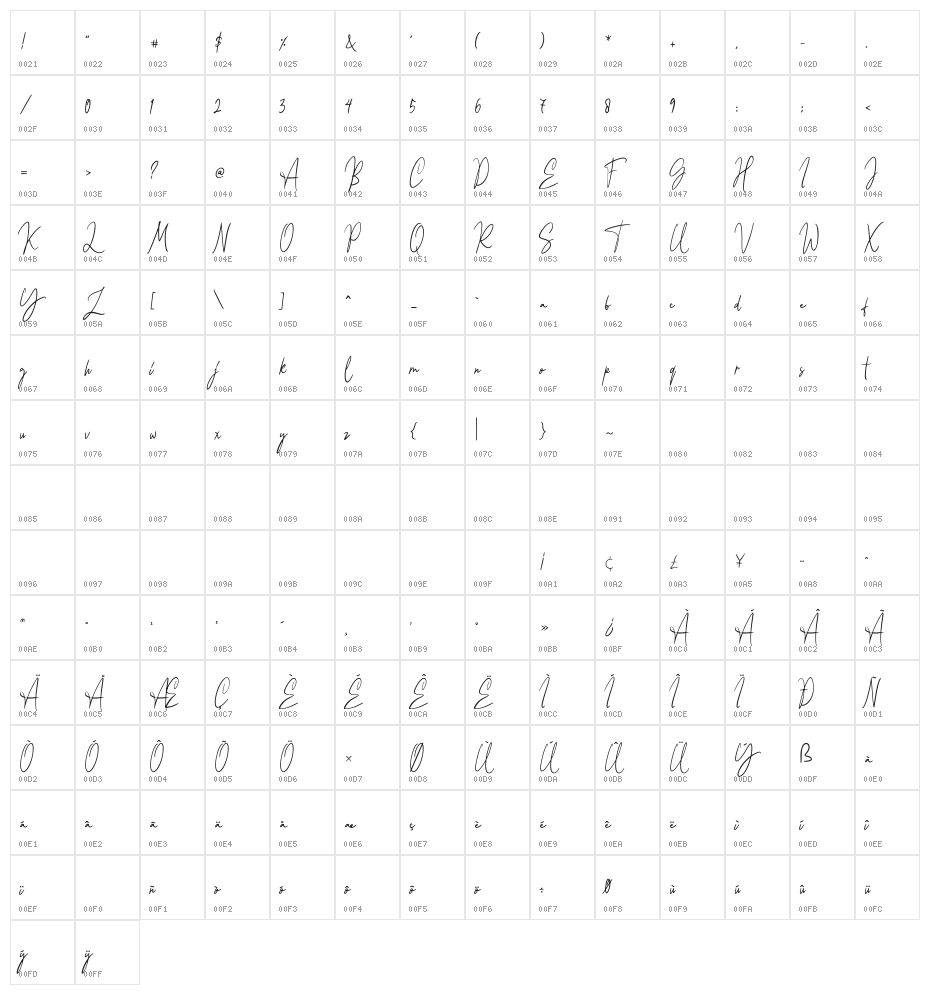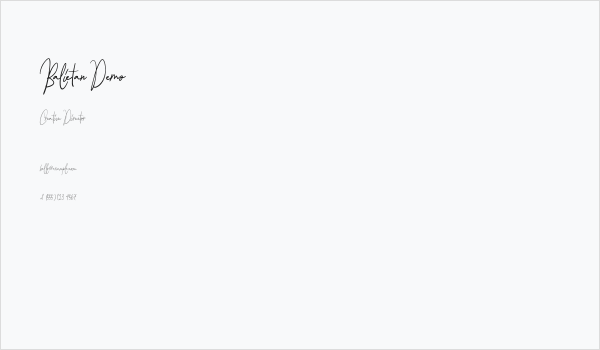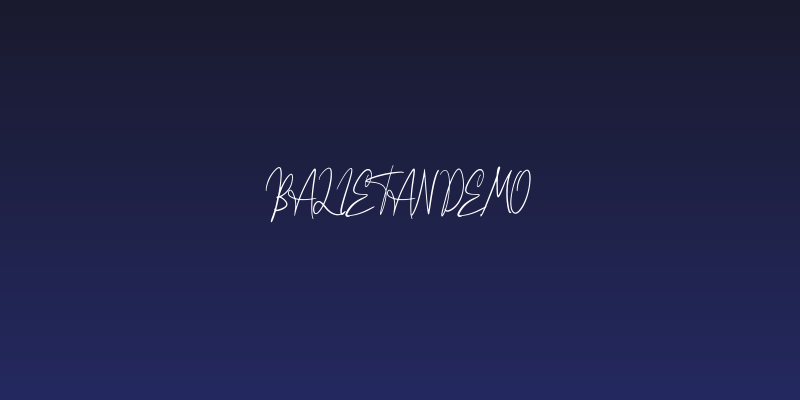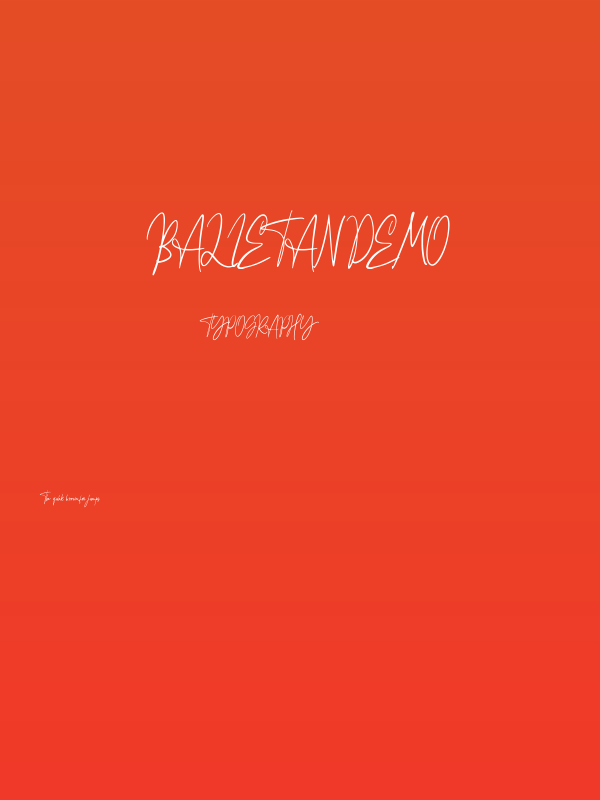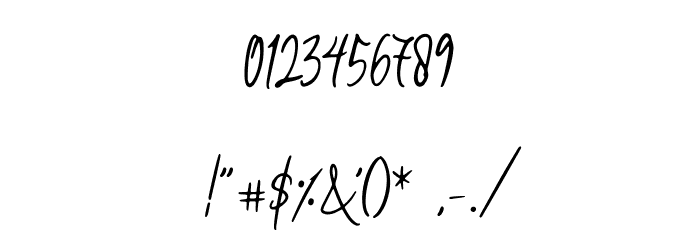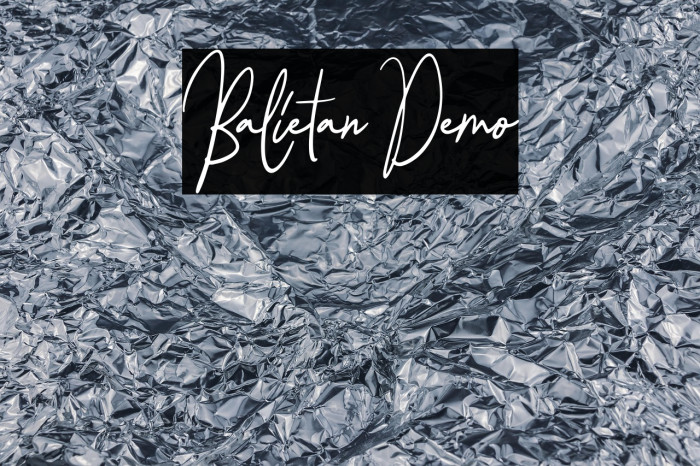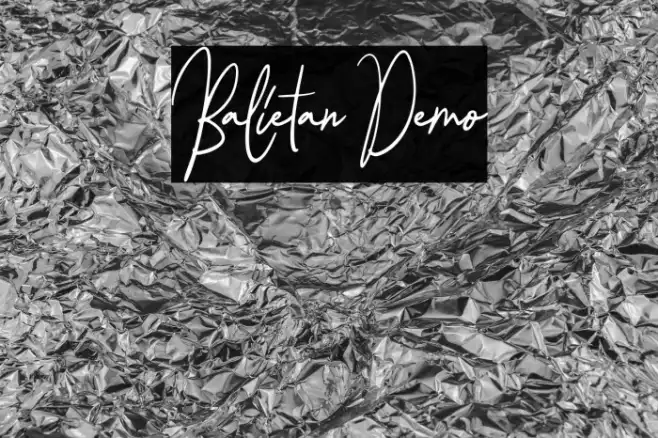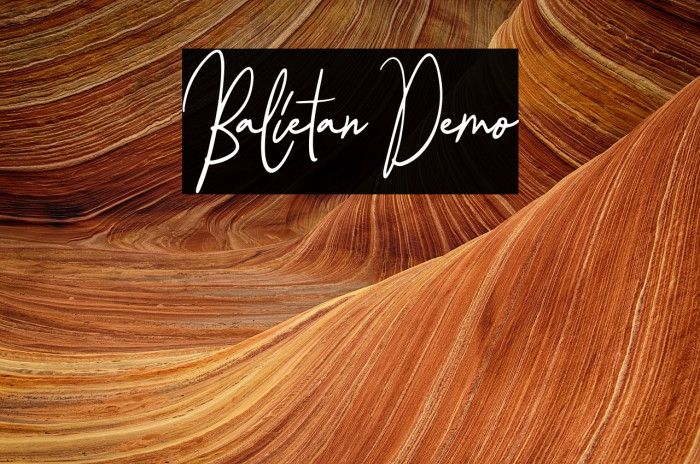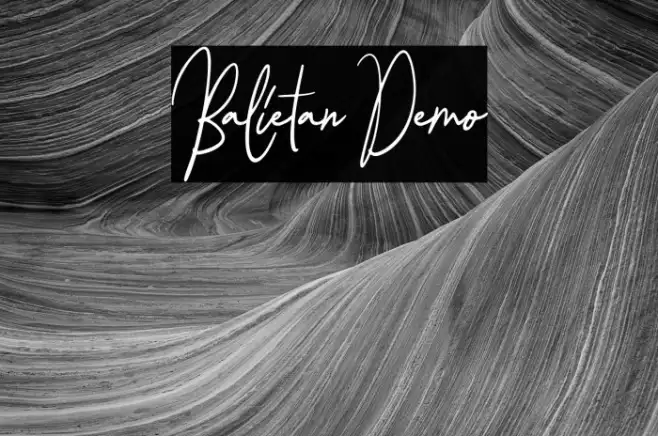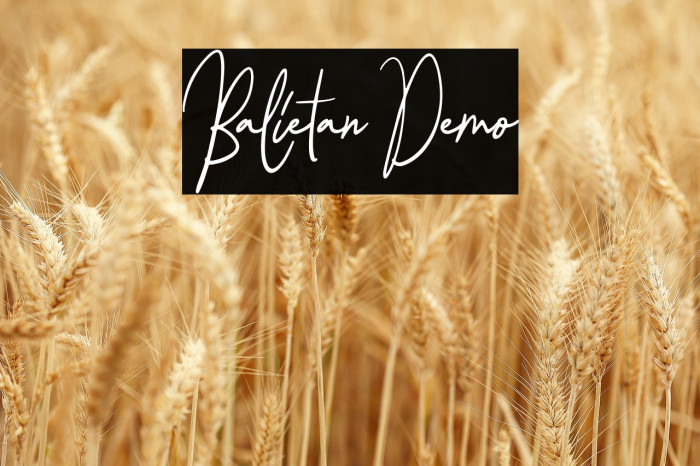
Balietan Demo Font
Balietan Demo Description
This font features an elegant, flowing script style with a handwritten appearance. The uppercase letters are tall and slender, with sweeping curves and loops that give a sense of movement and grace. The lowercase letters maintain a consistent style, with smooth, connected strokes that enhance the handwritten feel. Numbers and special characters are designed to match the overall aesthetic, ensuring a cohesive look across all text. The font's thin lines and delicate curves make it suitable for projects that require a touch of sophistication and elegance.
| Proposed Projects | Ideal for wedding invitations, greeting cards, personal branding, and elegant logos. |